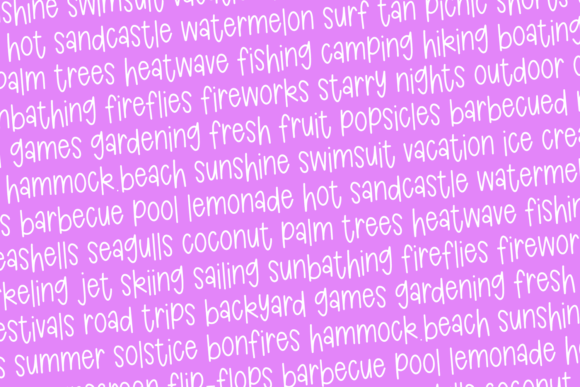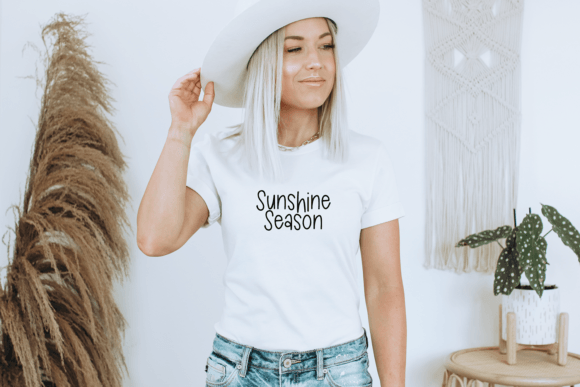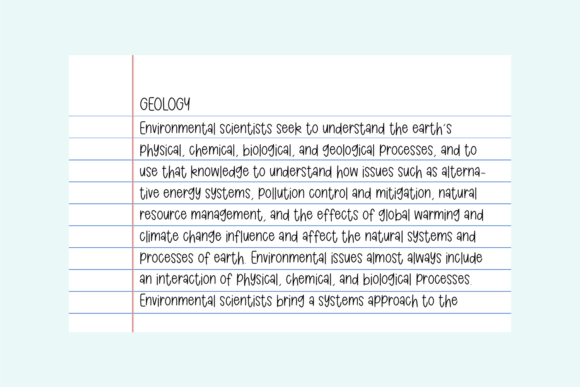
Introduction to Hawaiian Kayaking Font
Have you ever found yourself staring at a blank canvas, eager to bring your creative project to life, only to be held back by the perfect font to match your vision? That’s exactly what happened to many designers when they discovered the Hawaiian Kayaking Font.
Imagine a font that exudes the carefree spirit of a tropical island, with its natural and unique style making it an ideal design resource for a wide range of creative projects. The Hawaiian Kayaking Font is more than just a font – it’s a key to unlocking your full design potential, with its transparent background and high-quality design making it a valuable addition to any designer’s toolkit.
Key Features of Hawaiian Kayaking Font
- Unique and exotic design inspired by the spirit of Hawaiian kayaking, perfect for creative projects that require a touch of tropical flair.
- High-quality font with a transparent background, allowing for seamless integration into various design elements.
- Includes 4 different font styles: Regular, Italic, Bold, and Bold Italic, offering versatility for various design applications.
- Supports multiple languages, including English, Spanish, French, and many others, making it a great choice for international designs.
Honest Review: Hawaiian Kayaking Font
As a designer, I was excited to give the Hawaiian Kayaking Font a try. I’ve been working on a creative project that requires a fun, beachy vibe, and this font seemed like the perfect fit.
What works well is the unique, hand-drawn feel of the font. It’s perfect for adding a personal touch to your designs, and the transparent background makes it easy to layer over other elements. ✨ The font is also incredibly versatile, working well for everything from logos to social media graphics.
Here are some of the key features that I loved about the Hawaiian Kayaking Font:
- High quality, with crisp lines and a clear, easy-to-read design
- Perfect for creative projects that require a fun, beachy vibe
One limitation of the font is that it may not be suitable for more formal or professional designs. ⚠️ Additionally, some of the characters may not be as detailed or intricate as you’d like.
Overall, I was really impressed with the Hawaiian Kayaking Font. It’s a great resource for designers who want to add a bit of fun and personality to their work. Just be aware of its limitations, and use it for the right kind of project.
Hawaiian Kayaking Font
Design Tips
To get the most out of the Hawaiian Kayaking Font, consider the following tips:
- Use the font on a transparent background to create a subtle, layered look.
- Combine the font with other design elements, such as graphics and textures, to create a unique and eye-catching design.
The Hawaiian Kayaking Font is perfect for:
- Travel and adventure-themed designs
- Tropical and beach-inspired projects
- Creative projects that require a unique and elegant touch
High Quality
The font is designed to be high-quality and visually appealing, making it perfect for use in a variety of creative projects.